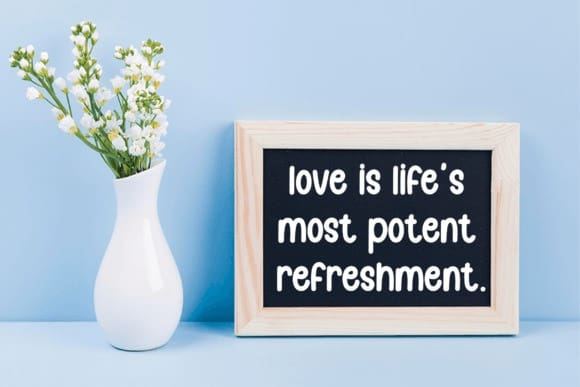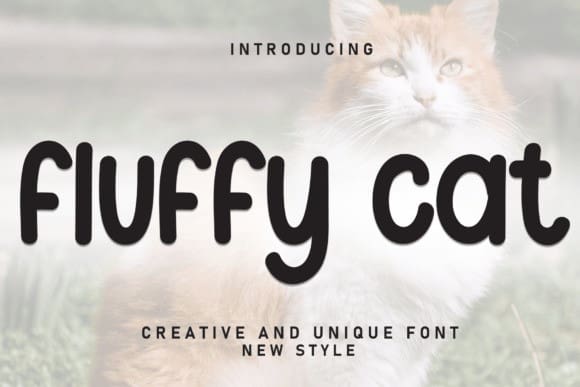
Fluffy Cat Font
Fluffy Cat Font: is a charming handwritten and script font that captures the quirkiness and warmth of our feline friends. With soft and gentle curves, this font adds a touch of sweetness and playfulness to any design. Perfect for greeting cards, children’s books and projects that evoke a cozy and adorable atmosphere.